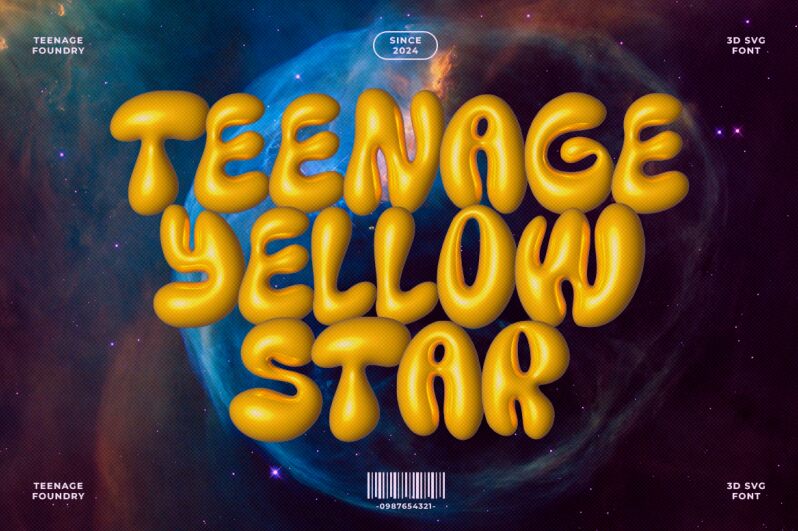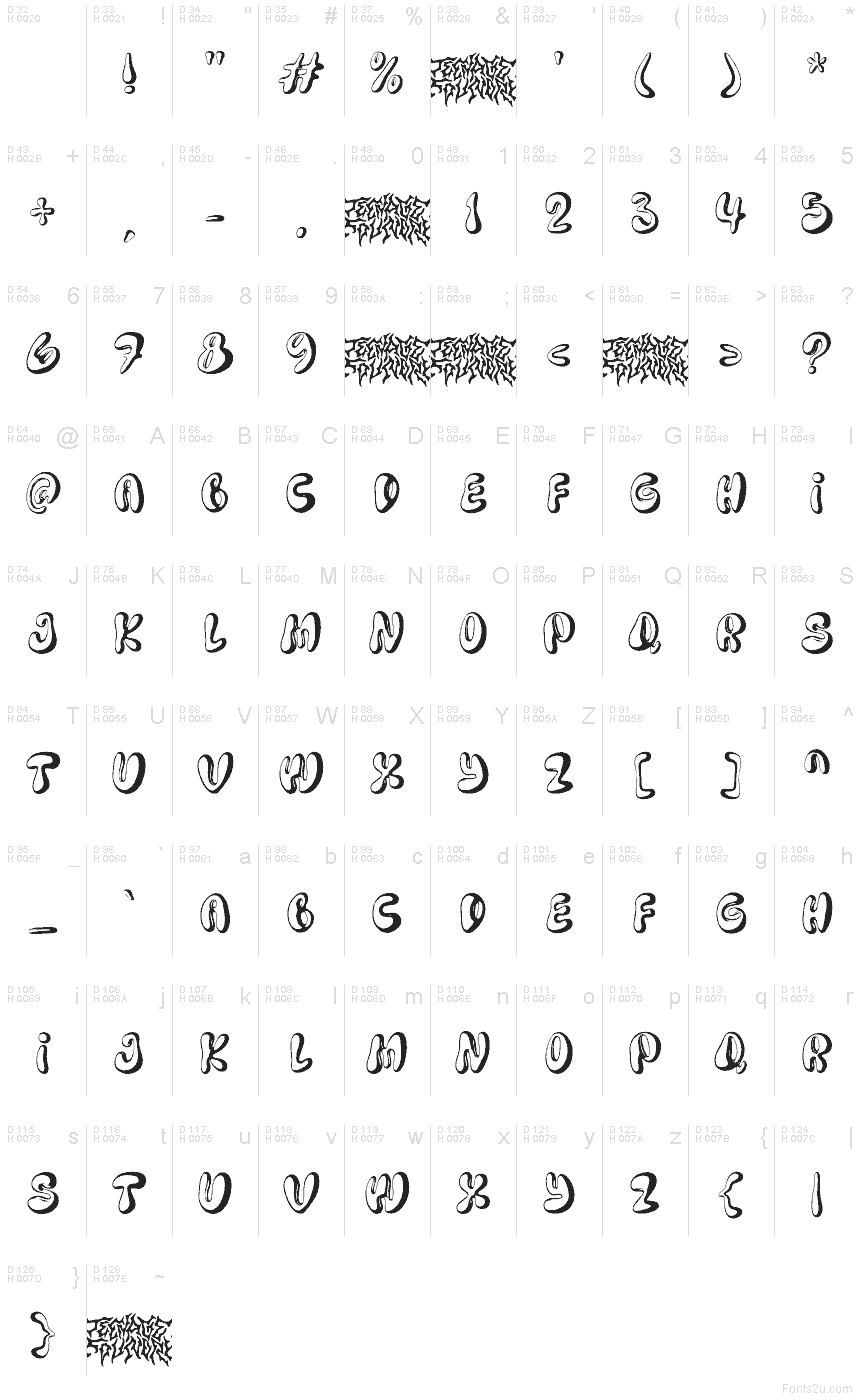
Teenage Yellow Star font by Teenage Foundry is a free groovy display typeface that looks like it tumbled straight out of a 70s poster bin. Its letterforms curl, loop, and flare with inky, hand-drawn energy, with chunky strokes that feel a little wild but still readable. The rhythm of the curves creates a rolling, wavy texture that instantly turns a plain word into a playful, retro logo.
Using Teenage Yellow Star, your titles and wordmarks snap into a bold, psychedelic mood with almost no extra styling. This free font shines on music and festival posters, skate or streetwear branding, stickers, social media graphics, and zines where you want a dreamy, offbeat edge. Keep it large and give it room to breathe, then pair it with a clean, narrow sans serif for body text to balance all that lush, swirling character.
Teenage Foundry
TeenageYellowStar-SVGフォントの紹介と見本